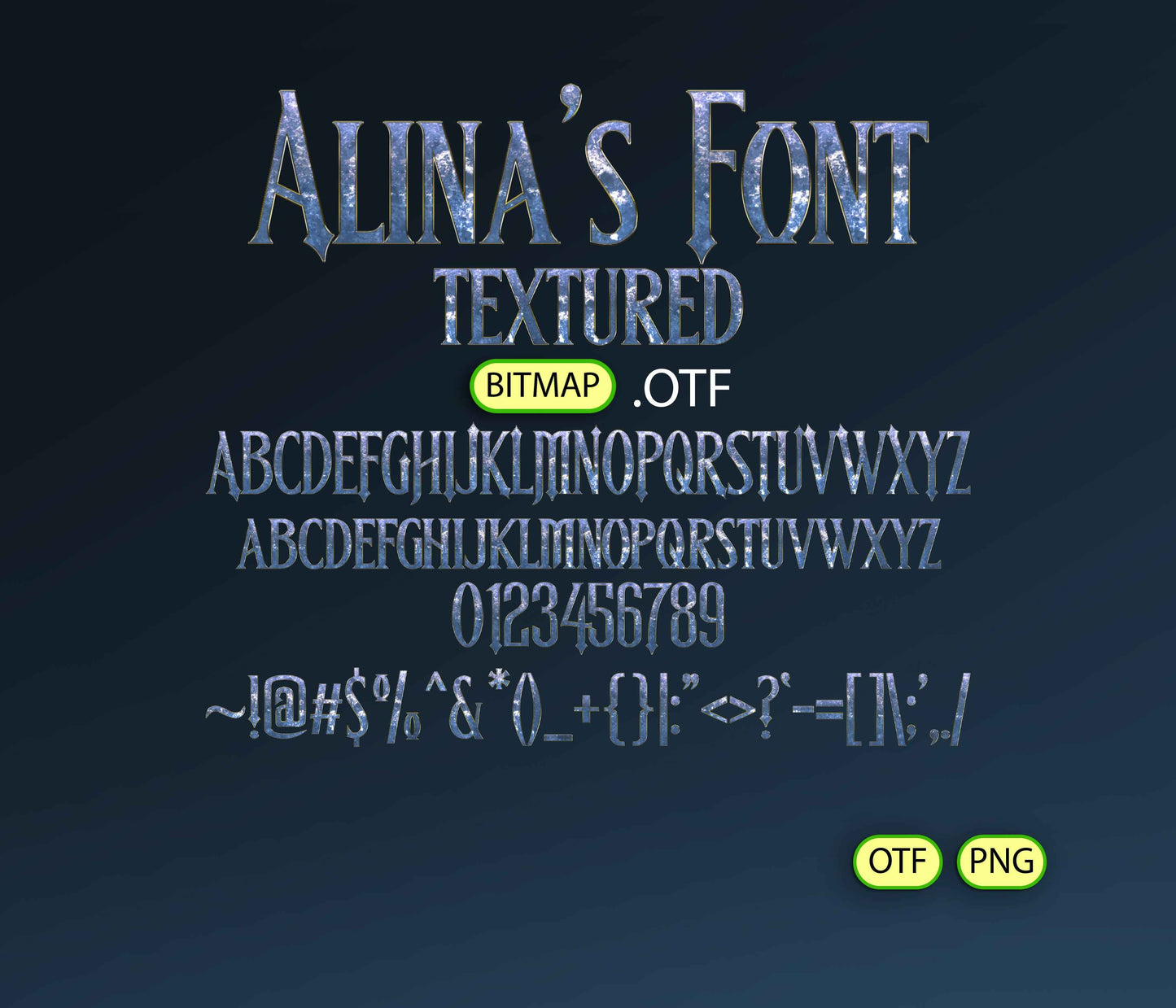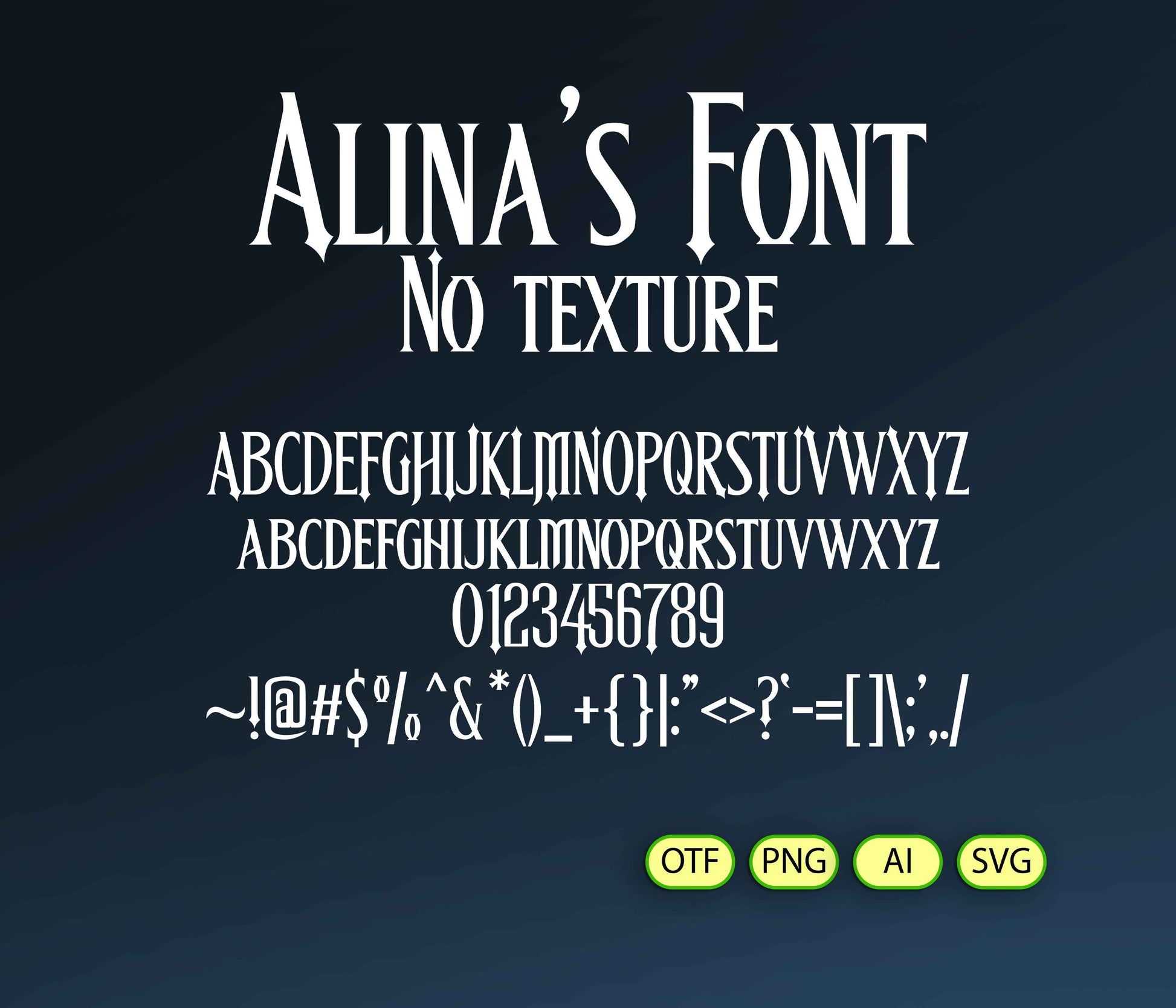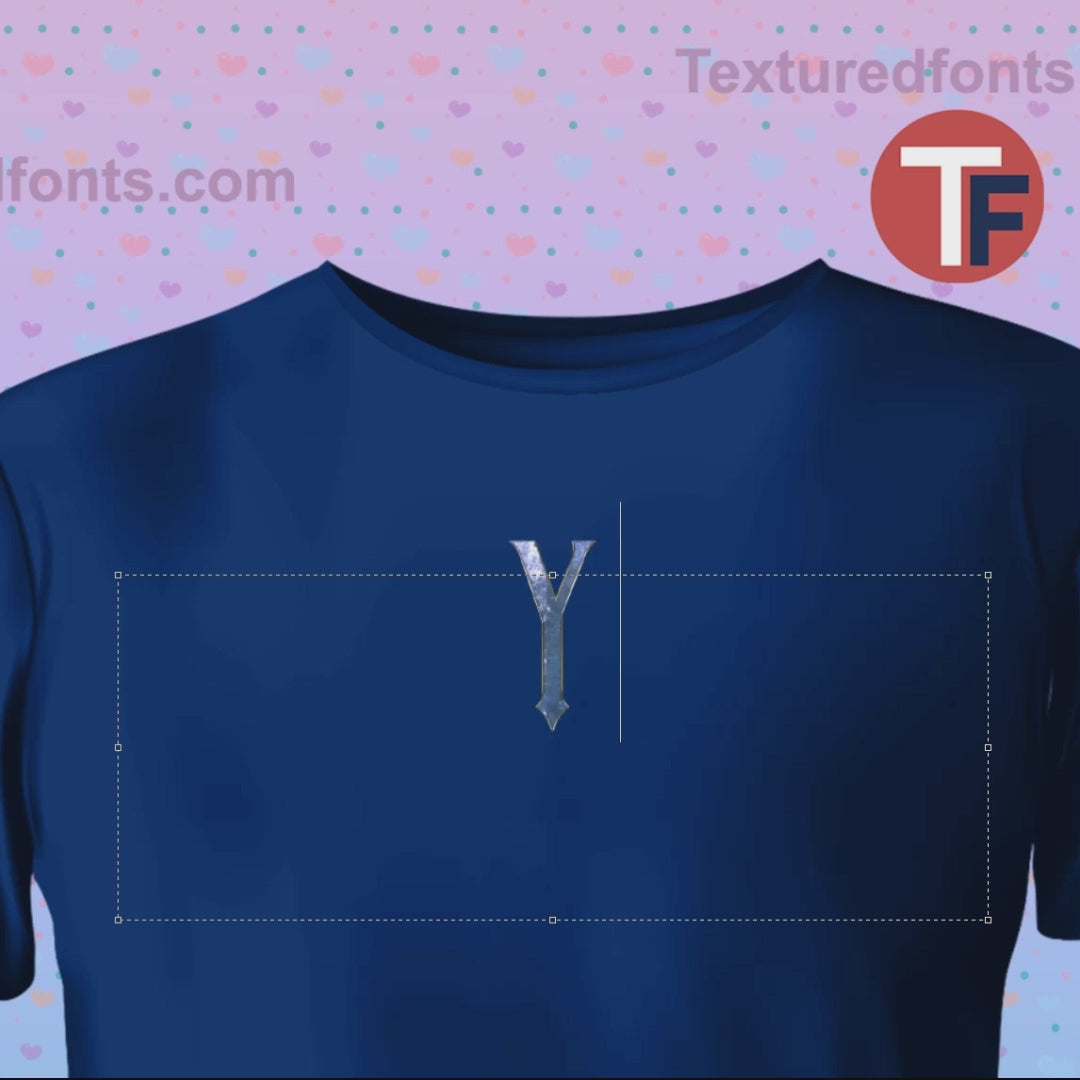
Eerie Manor Font Textured
Step into the Spooky Elegance with the Eerie Manor Font
Bring the eerie charm and gothic sophistication of the Eerie Manor into your designs with our Eerie Manor-inspired font. Perfect for fans of classic haunted themes, event planners, and designers looking to evoke a sense of mystery and vintage horror, this font ensures your projects are steeped in the supernatural allure of a haunted mansion.
Our Eerie Manor font features ornate, Victorian-style lettering with intricate details that capture the spooky and elegant atmosphere of a beloved haunted attraction. This font is versatile and ideal for a variety of applications:
To ensure broad usability and compatibility, our Eerie Manor-inspired font includes both textured and non-textured variants. The non-textured version is especially useful, guaranteeing seamless integration with all types of software, including Canva. This feature allows designers of all skill levels to effortlessly incorporate the font into their projects, enhancing its versatility across digital and print media.
Many people seek out an Eerie Manor Font generator online to mimic the look of the Eerie Manor Font. Steer clear! No font generator can match the quality of this Eerie Manor Font, which comes in two versatile versions: a textured colored Eerie Manor font and a simple Eerie Manor font. This is particularly beneficial if you plan to use it with a cutting machine.
Our Eerie Manor font not only pays tribute to the iconic haunted attraction but also empowers you to infuse your designs with its spooky elegance. Whether you're planning a themed event, creating merchandise, or adding a gothic touch to personal projects, this font lets you communicate with the haunting sophistication and vintage charm of a haunted mansion. Ready to bring a spectral presence to your creative endeavors? Let this font be your guide into the haunted world of timeless design.